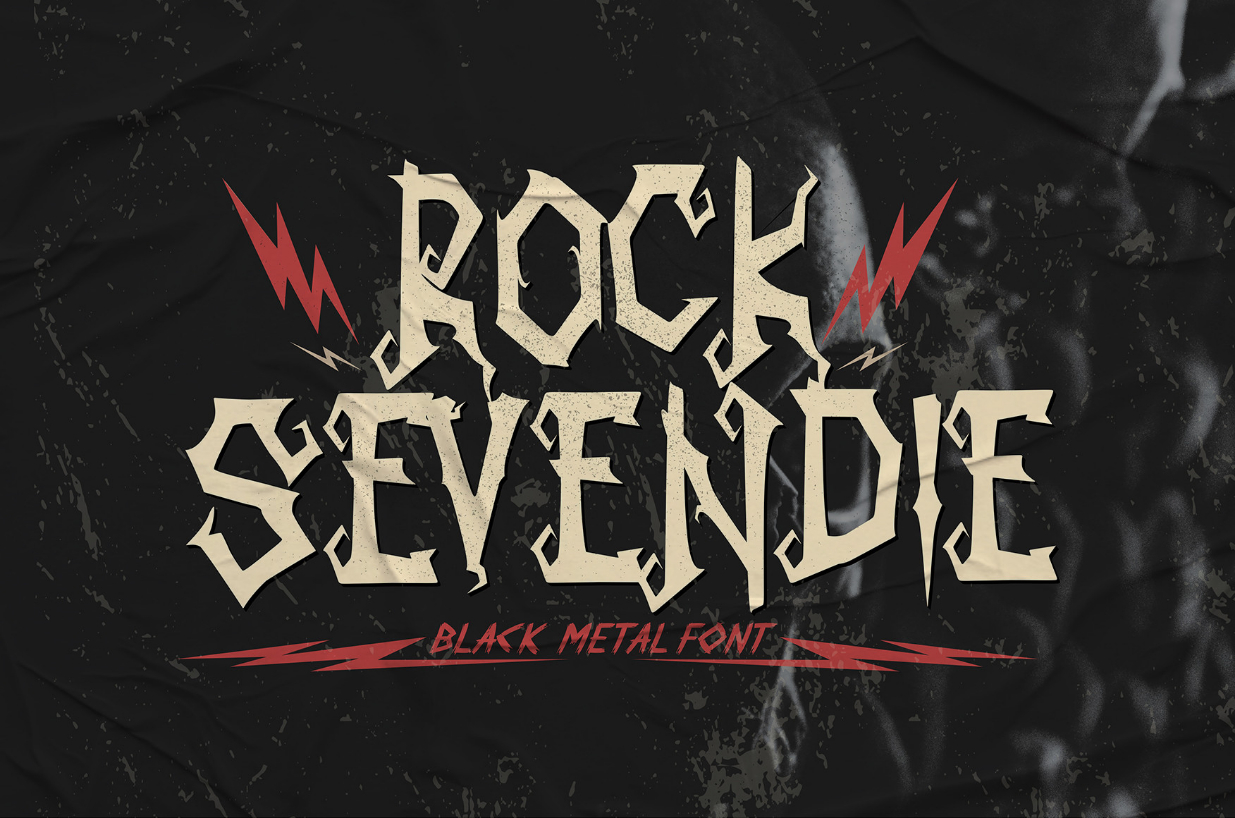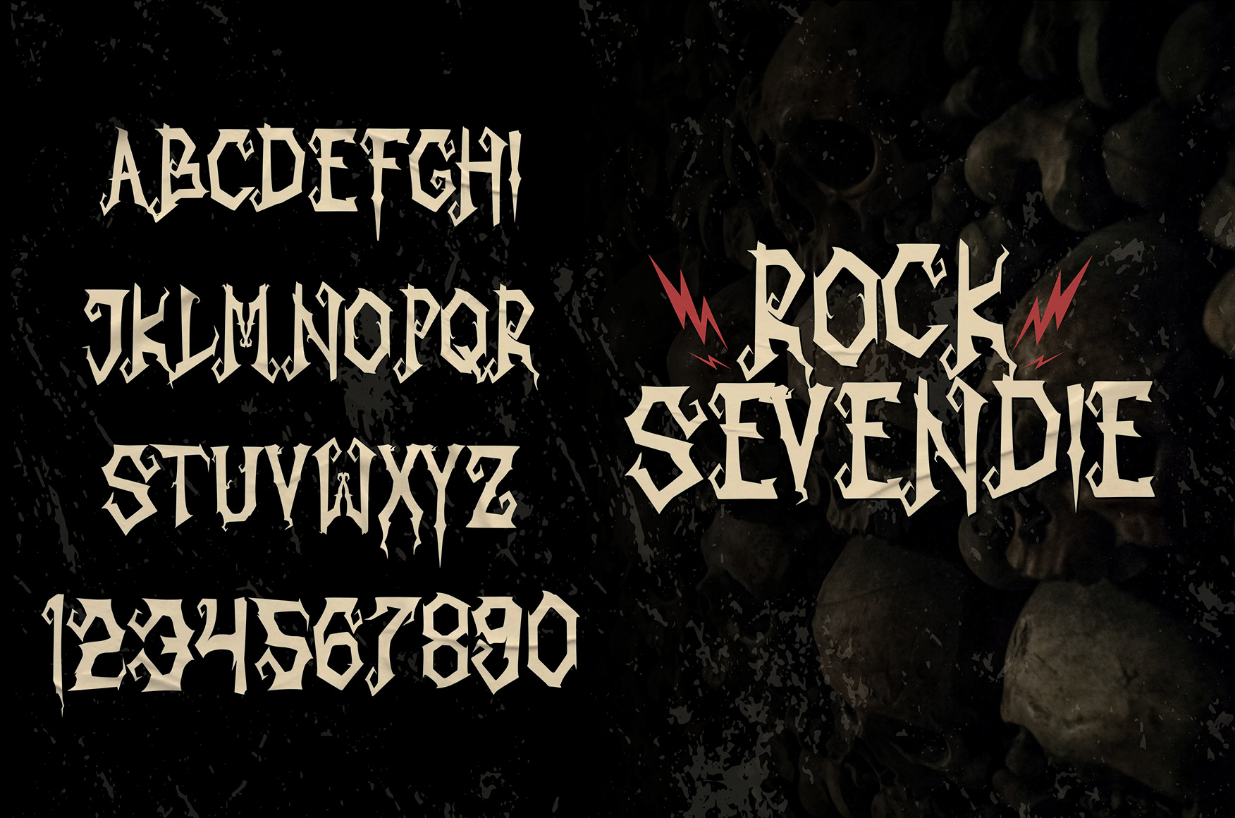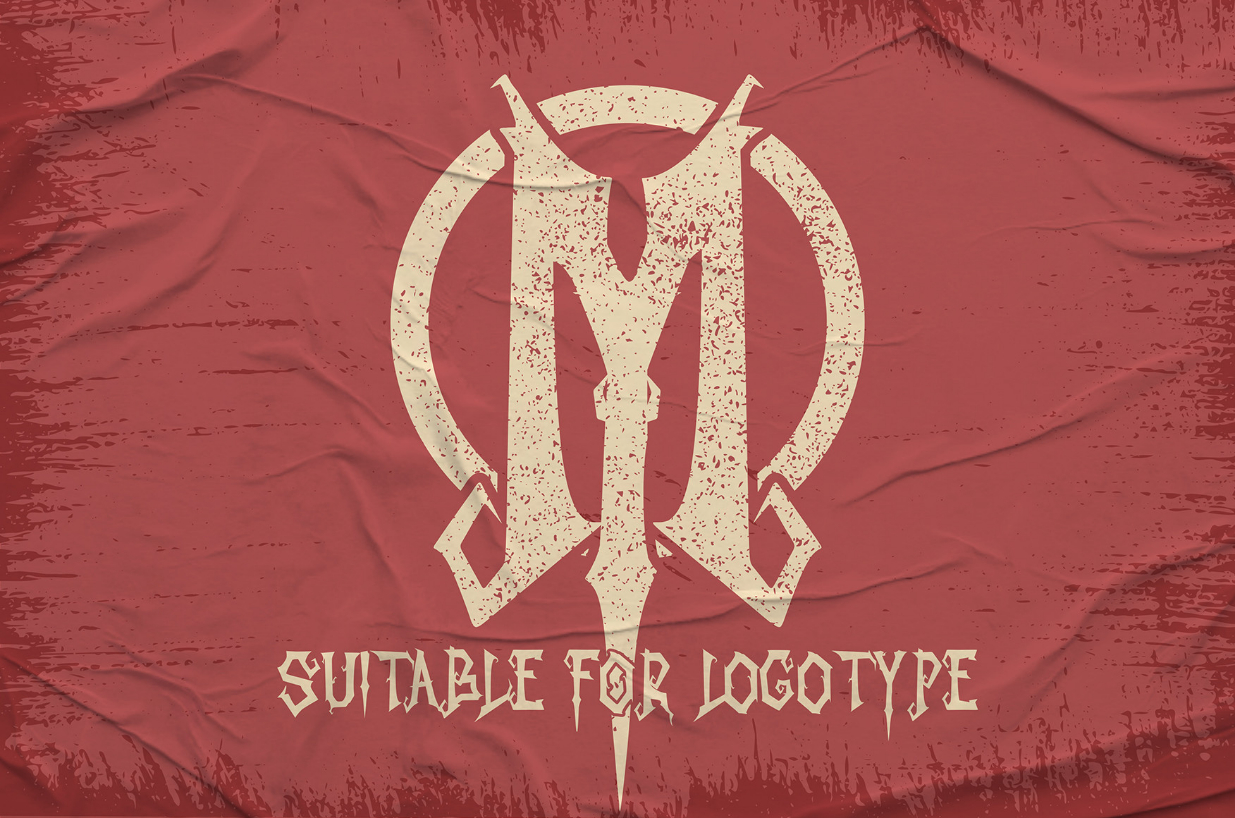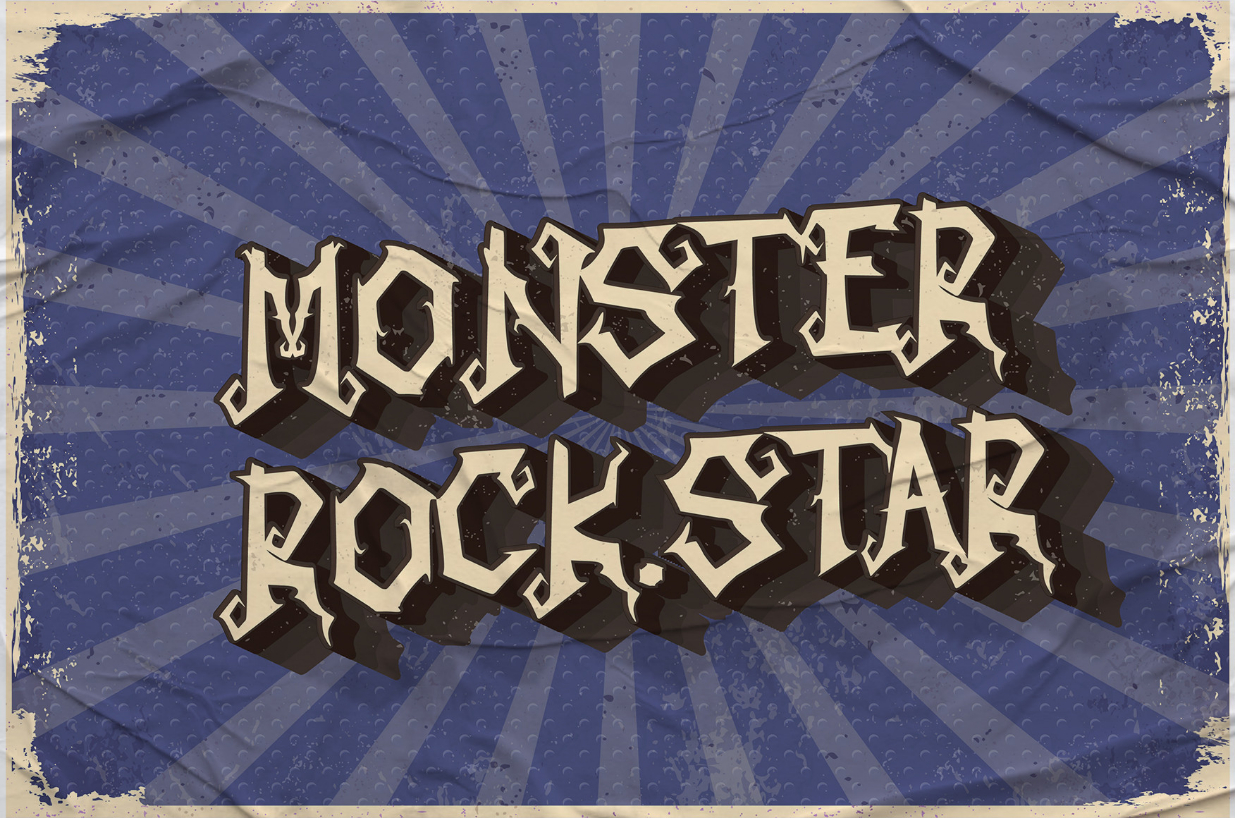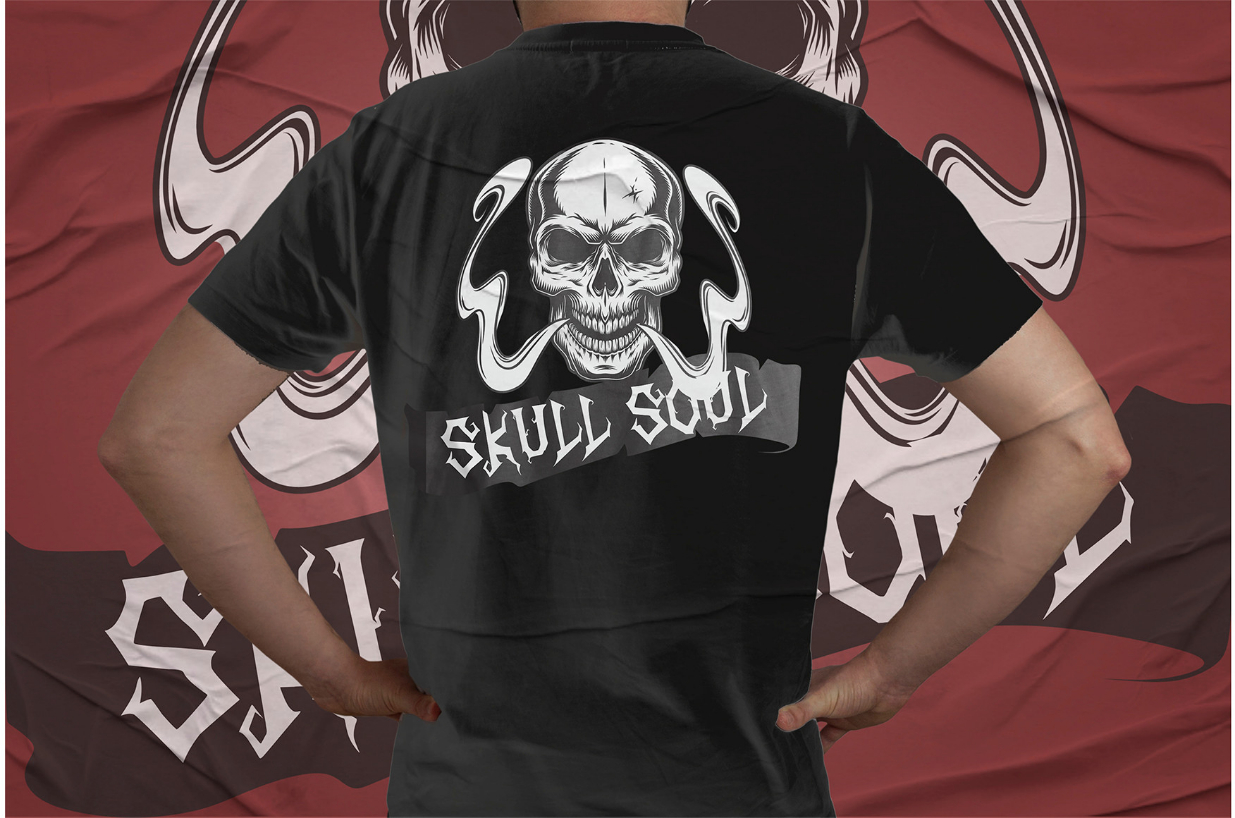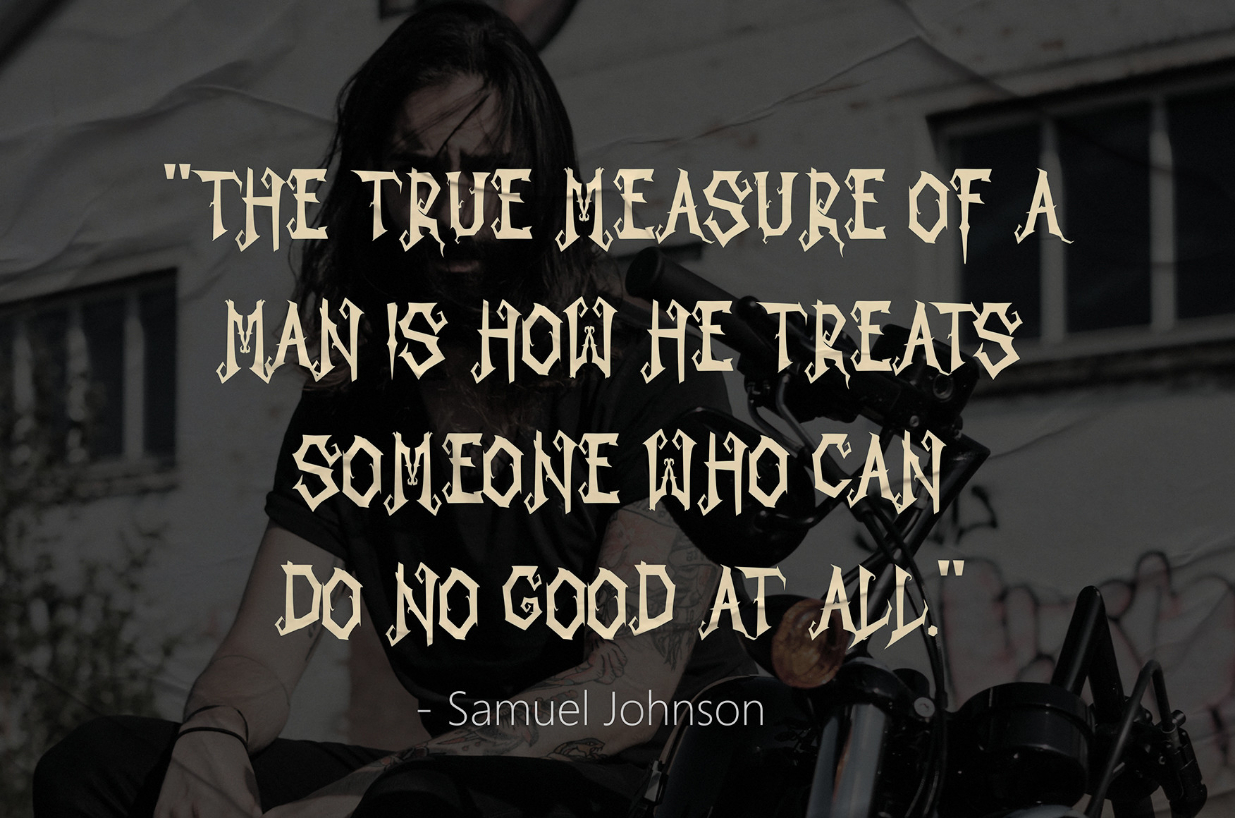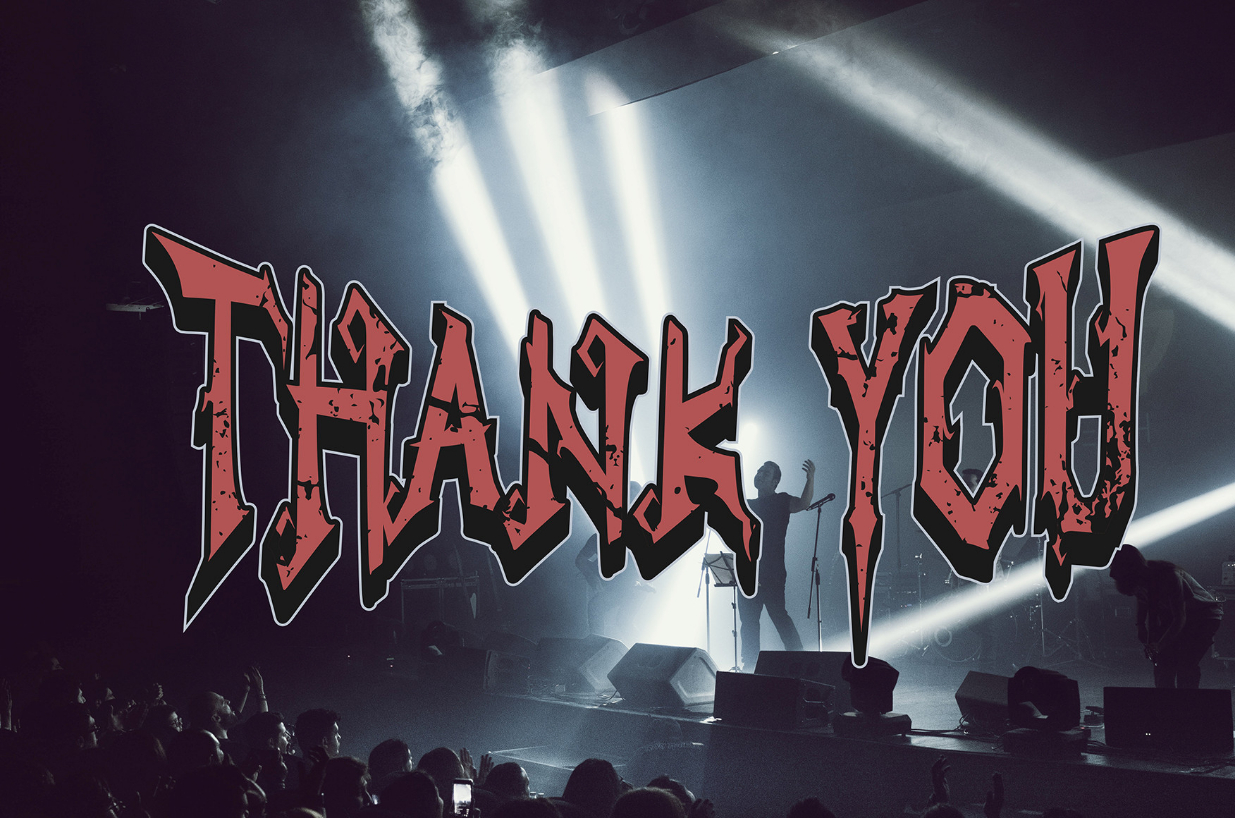
Rock Sevendie Font
About Rock Sevendie Font
Rock Sevendie is a cool and unique blackletter font. Its bold and original look is perfect for metal or rock bands’ album covers, posters, apparel, and more!